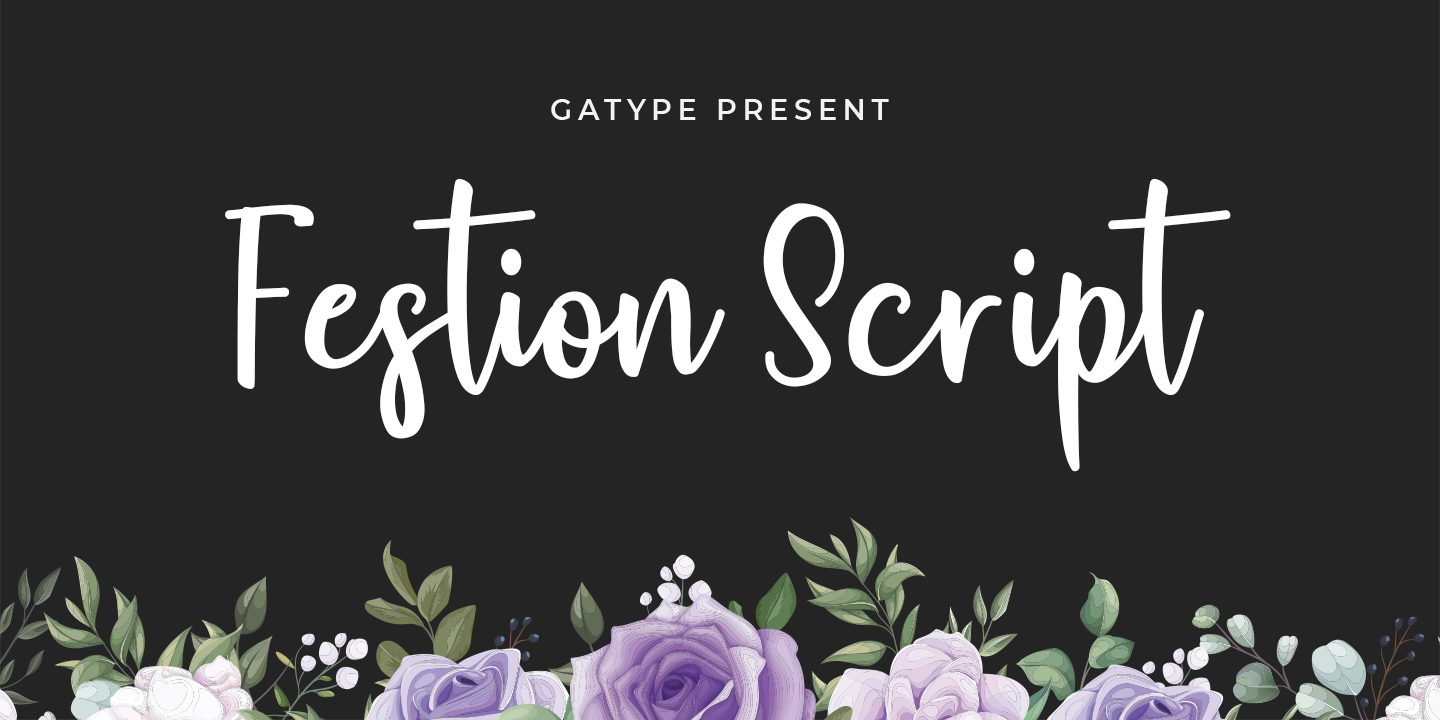
Festion Script Font is ideal for elegant wedding invitations, luxury celebration materials, sophisticated personal branding, graceful calligraphy services, romantic greeting cards, upscale event planning, refined boutique identity, artisan craft packaging, festive party graphics, and flowing applications that celebrate the art of beautiful handwriting and ceremonial elegance.
What makes Festion Script Font truly exciting is its exquisite capture of celebratory elegance and festive sophistication that embodies the graceful artistry of handwritten correspondence and the joyful spirit of special occasions. This exceptional typeface combines script beauty with festive charm, featuring flowing letterforms and celebratory character that convey both artistic refinement and joyous celebration. The font's festive personality and script elegance make it perfect for brands seeking to communicate celebration, elegance, and the transformative power of beautiful handwriting that turns ordinary messages into memorable keepsakes and special moments.
The Festion Script Font family includes multiple weights and styles: Light, Regular, Bold, Flourished, and Celebration variations designed for maximum festive impact. Each family member maintains the distinctive script character while offering flexibility for diverse celebration applications and elegant branding systems. The comprehensive character set supports script typography needs and festive design elements, making it suitable for international celebration communications.
When you choose Festion Script Font Free Download, you're selecting a typography celebration that delivers authentic script credibility and festive excellence to every elegant project. This flowing typeface excels in applications where celebration and handwritten beauty are paramount, delivering exceptional festive appeal while maintaining script authenticity. Whether you're designing wedding brands, celebration campaigns, elegant materials, or festive marketing content, this font provides the script sophistication and celebratory elegance that resonates with audiences who appreciate handwritten artistry, celebration beauty, and the special magic of elegant script that transforms ordinary text into beautiful, memorable expressions of joy and sophisticated celebration.